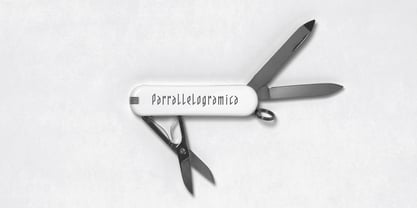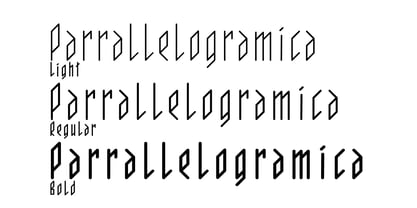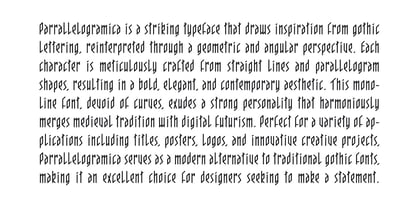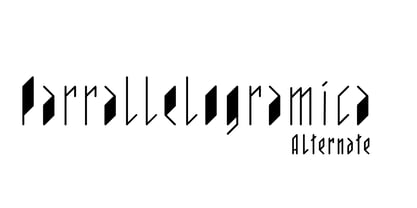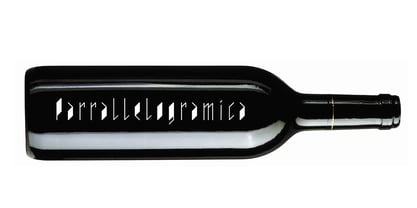
Parrallelogramica
by Cubo Fonts
The Parrallelogramica Font Family was designed by Florent Courtaigne and published by Cubo Fonts. Parrallelogramica contains 4 styles and family package options. More about this family
Parrallelogramica is a striking typeface that draws inspiration from gothic lettering, reinterpreted through a geometric and angular perspective. Each character is meticulously crafted from straight lines and parallelogram shapes, resulting in a bold, elegant, and contemporary aesthetic. This monoline font, devoid of curves, exudes a strong personality that harmoniously merges medieval tradition with digital futurism. Perfect for a variety of applications including titles, posters, logos, and innovative creative projects, Parrallelogramica serves as a modern alternative to traditional gothic fonts, making it an excellent choice for designers seeking to make a statement.
Designers: Florent Courtaigne
Foundry: Cubo Fonts